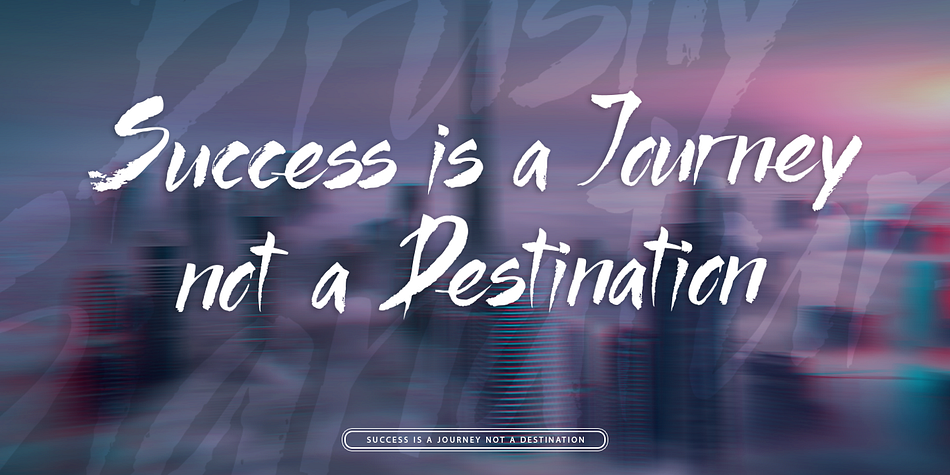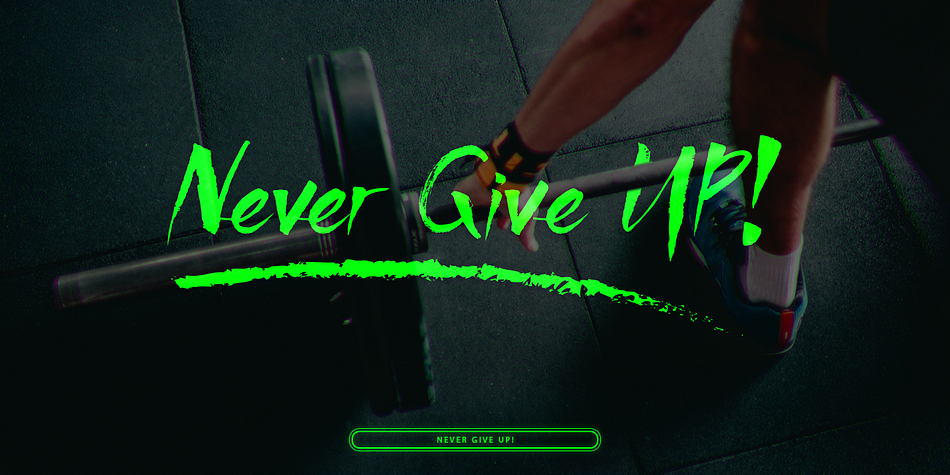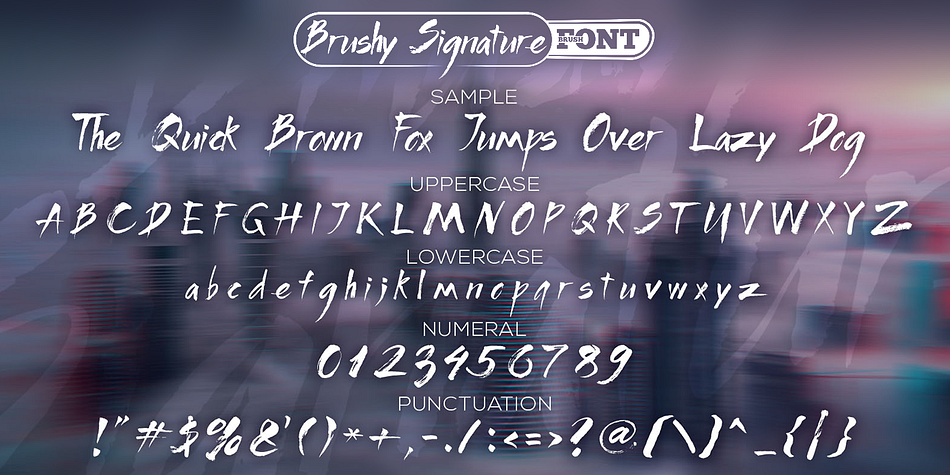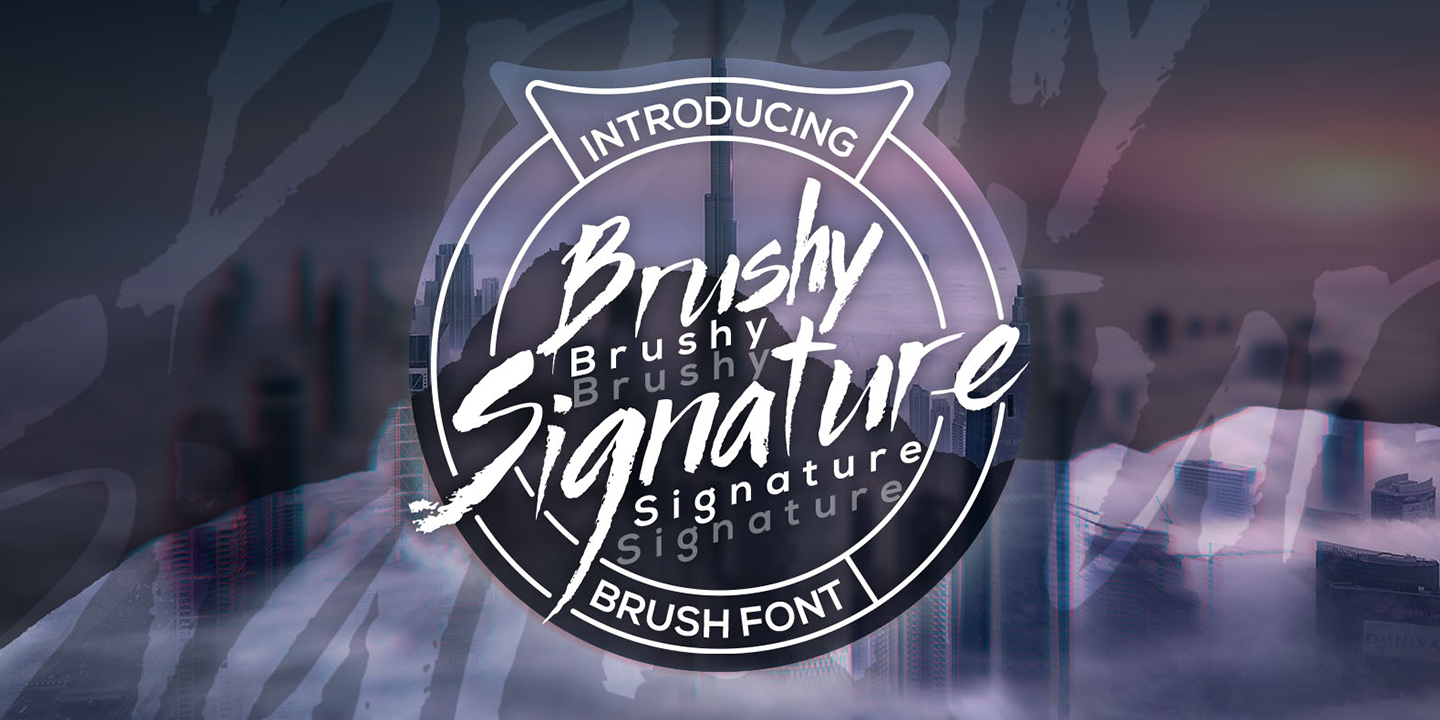
Brushy Signature
Designed by Mohammed Lamjidi, Brushy Signature is a brush display font family published by Beast Designer.
Brushy Signature is a cool styled script font. It was designed to suit plenty of projects such as photography, branding, business, Instagram stories, fashion apparel, film, and many more.
Foundry Beast Designer
Style Brush Display
Designer Mohammed Lamjidi